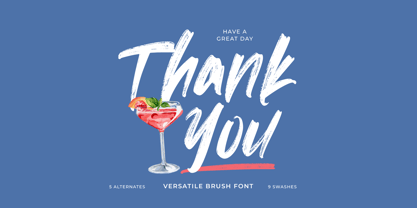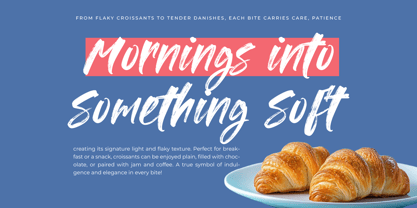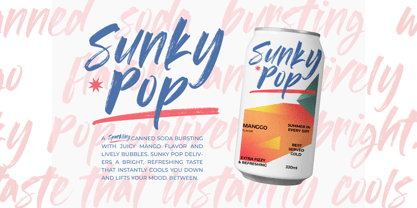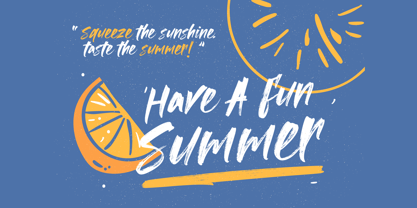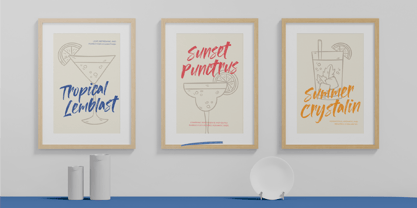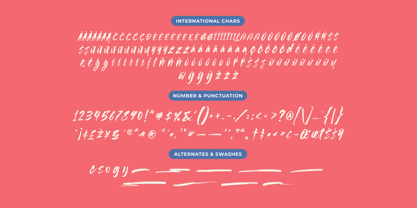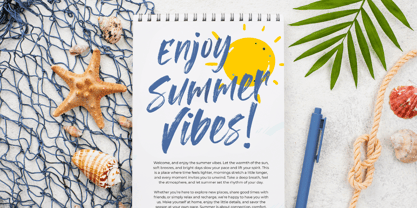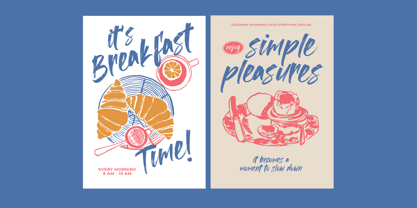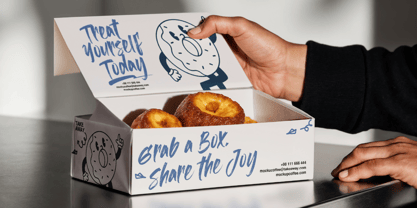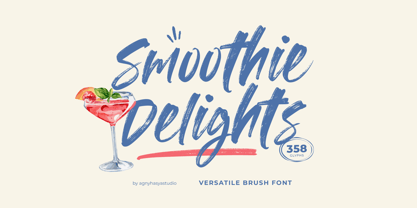
Smoothie Delights
by Agny Hasya Studio
The Smoothie Delights Font Family was designed by Firman Maulana and published by Agny Hasya Studio. Smoothie Delights contains 1 styles. More about this family
Smoothie Delights is a versatile brush font that brings warmth, joy, and a handcrafted feel to your designs. Inspired by smooth brushstrokes and casual handwritten lettering, it strikes a perfect balance between playful expression and clean readability. With natural flow, organic texture, and a relaxed rhythm, Smoothie Delights works beautifully for food branding, café menus, packaging, posters, social media graphics, quotes, and lifestyle projects. Its versatile style suits both cheerful headlines and friendly body text. Packed with extensive glyphs and multilingual support, Smoothie Delights gives designers the freedom to create expressive, modern, and inviting typography for digital and print use. Whether you’re crafting summer-themed visuals, cozy branding, or fun promotional designs, Smoothie Delights adds a fresh, delightful personality to every project. Thanks for stopping by. Questions, ideas, or feedback are always welcome. Feel free to reach out anytime. Warm regards, agnyhasyastudio
Designers: Firman Maulana
Foundry: Agny Hasya Studio